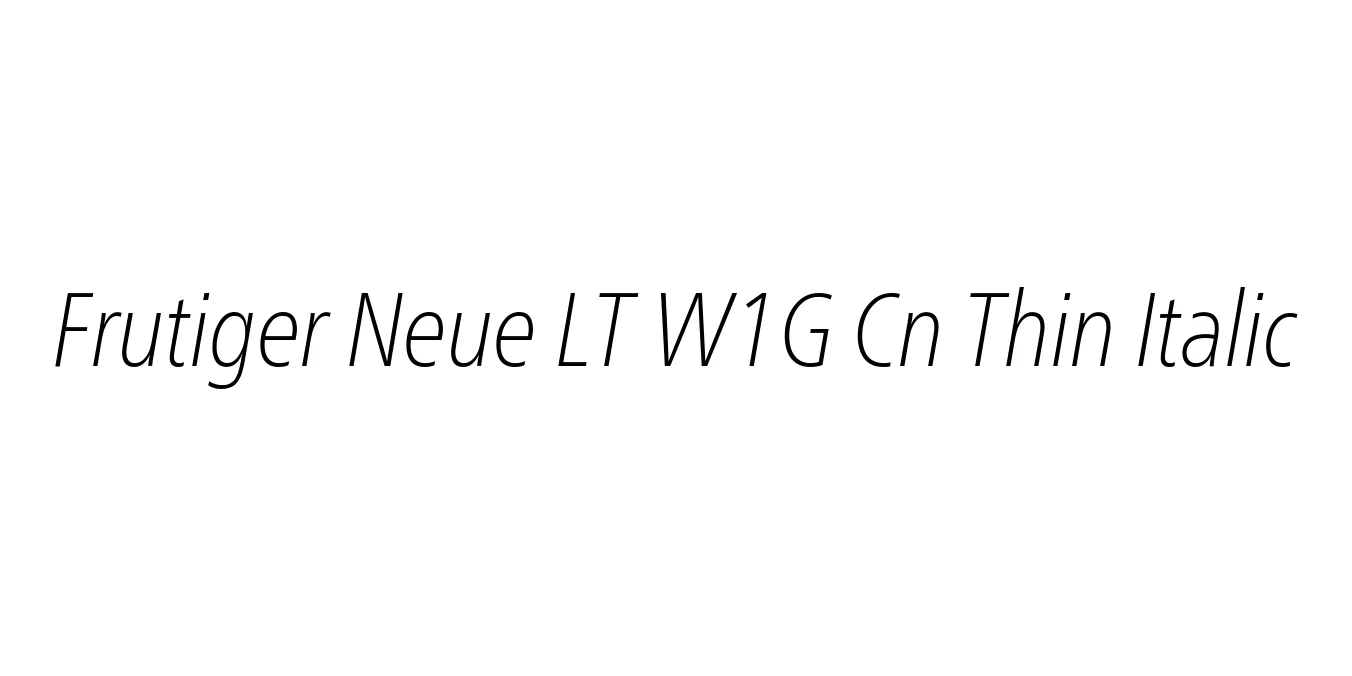
Frutiger Neue LT W1G Cn Thin Italic
Designed by Adrian Frutiger, Akira Kobayashi
Frutiger Neue LT W1G Cn Thin Italic is a refined evolution of the legendary Frutiger typeface, originally conceived by Swiss master Adrian Frutiger. This specific version, part of the Neue Frutiger family, was redesigned in collaboration with Akira Kobayashi to meet modern digital demands while maintaining the clarity and humanistic structure that made the original 1975 design a milestone in wayfinding and signage.
The Thin Italic weight in the Condensed width offers a sophisticated, space-efficient profile that excels in high-density environments. As part of the W1G (World Glyph) series, it provides extensive character support across multiple languages and scripts. Its distinct, true italic style offers a more calligraphic feel compared to traditional oblique cuts, making it ideal for professional editorial layouts and elegant corporate identity systems.
Frutiger Neue LT W1G Cn Thin Italic Best Uses
Excellent for airport and public transport signage due to high legibility.
Perfect for thin, elegant headings or captions in high-end magazines.
Clean and professional look for mobile applications and complex dashboards.
Provides a modern and trustworthy image for global brands.